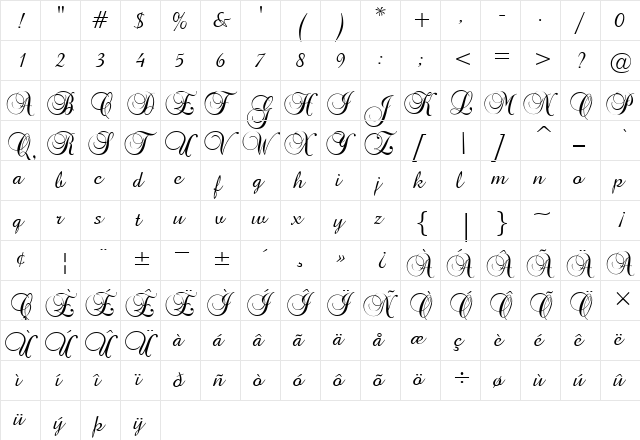
BrockScript Regular
Design Context for BrockScript Typeface
BrockScript brings a calligraphic fluidity to the page — its connecting strokes and expressive curves give it an unmistakably human quality.
Font Pairing: Combine BrockScript with a simple geometric sans for maximum contrast — the tension between flowing curves and clean structure is a classic typographic pairing.
Pro Tip: Pair BrockScript with a clean sans-serif for supporting text. The contrast between fluid script and geometric structure creates an elegant typographic hierarchy.